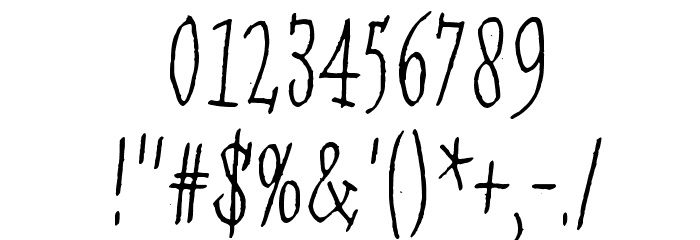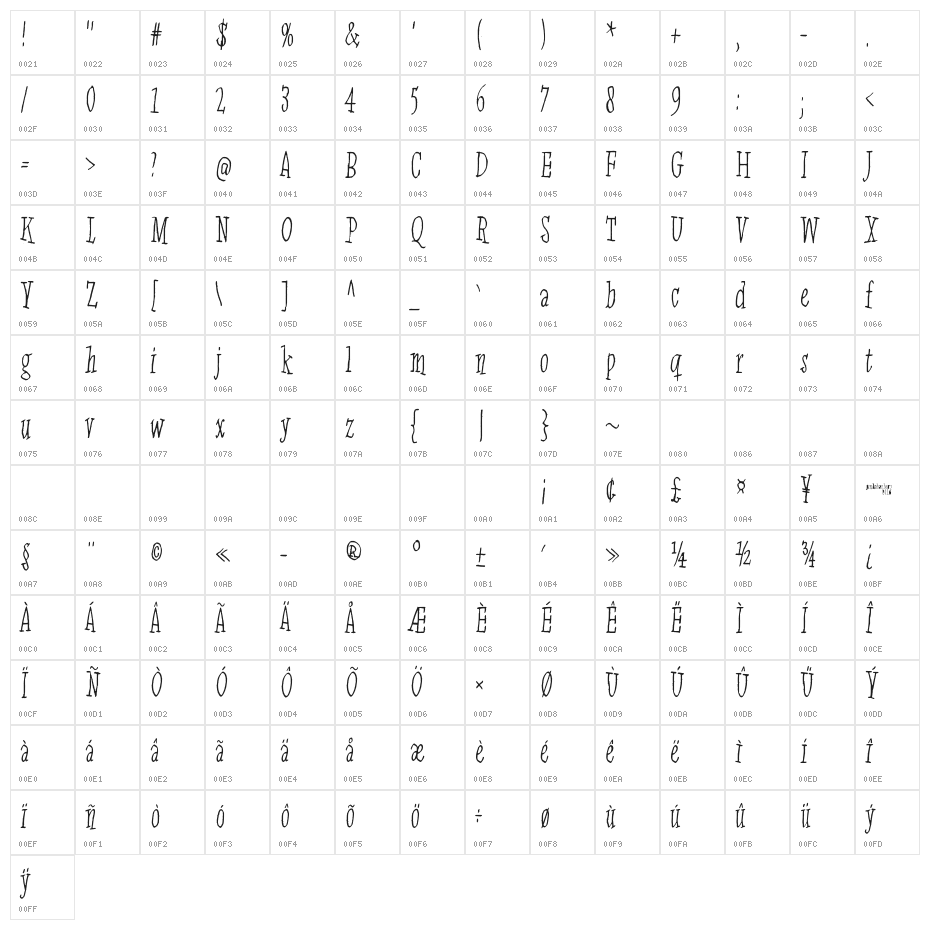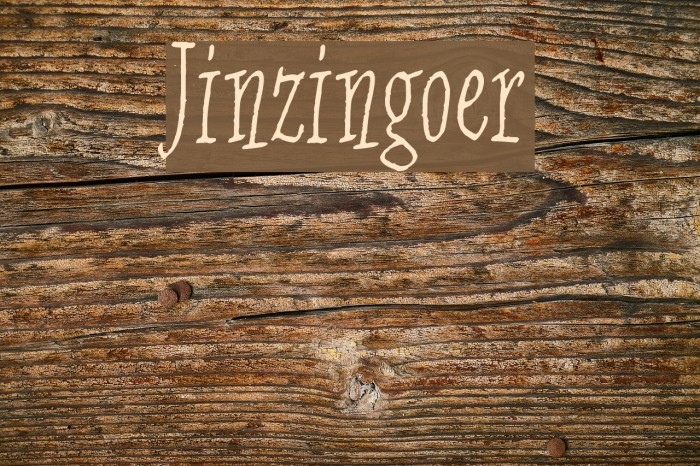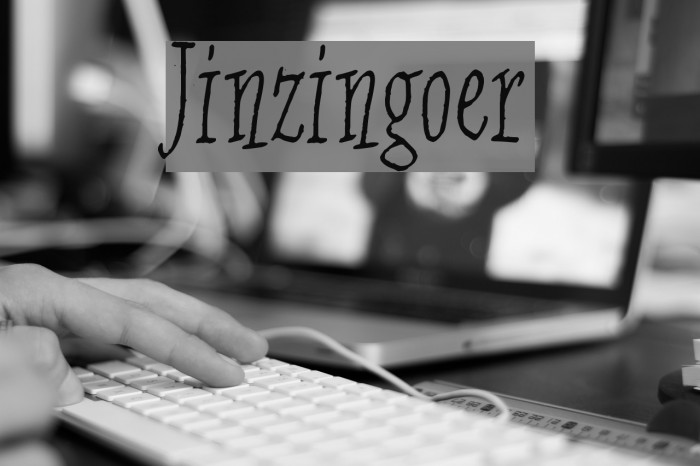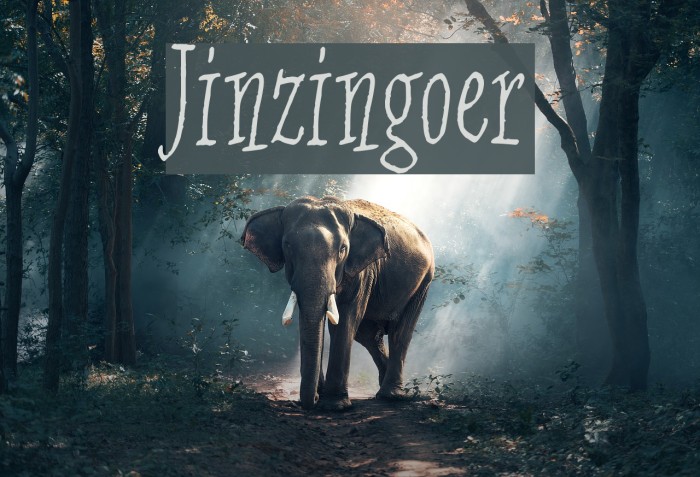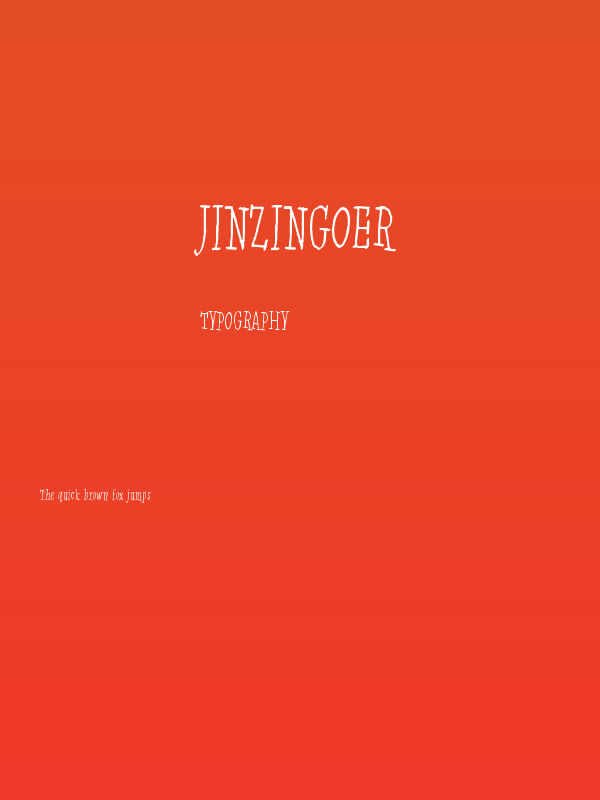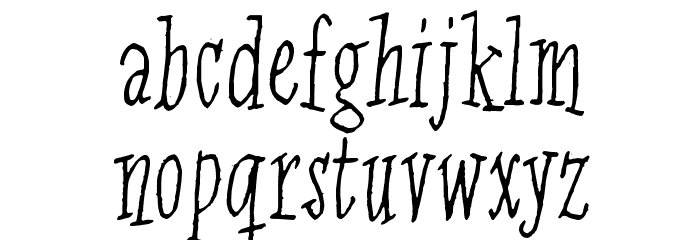
Jinzingoer Font
Jinzingoer Description
This font features a whimsical and playful style with a hand-drawn appearance. The letters are slightly irregular, giving it a charming and informal feel. The uppercase letters are tall and narrow, while the lowercase letters maintain a consistent height with a slight slant, adding to the casual aesthetic. The numbers and special characters follow the same playful design, making the font versatile for creative projects. The strokes are uneven, contributing to its unique character and making it ideal for designs that require a personal touch.
| Proposed Projects | Ideal for children's books, greeting cards, playful branding, and creative posters. |